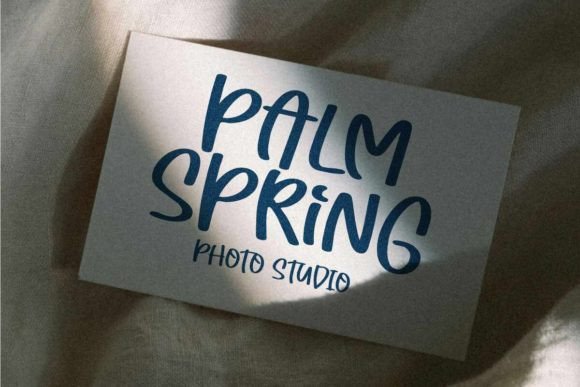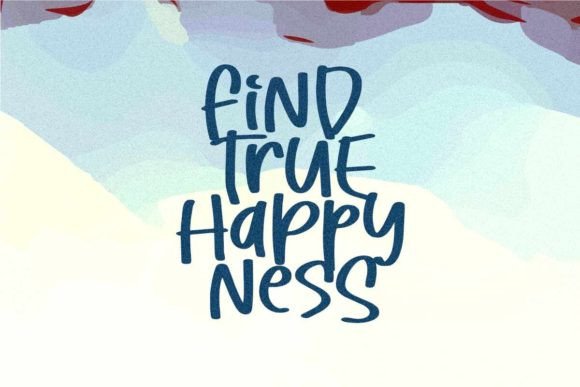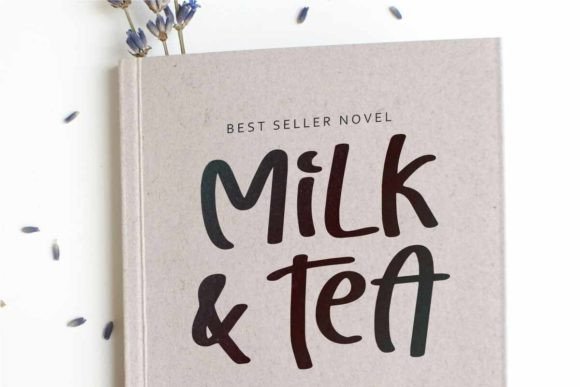
Introduction to Party at the Beach Font
As you sit at your desk, staring at a blank canvas, and the sun is shining brightly outside, you can’t help but feel the urge to create something that captures the essence of a carefree summer day. The sound of seagulls, the smell of saltwater, and the feeling of sand between your toes – it’s the perfect inspiration for your next creative project.
That’s where the Party at the Beach Font comes in – a high-quality design resource that’s sure to bring a smile to your face and a touch of sunshine to your designs. With its transparent background and playful characters, this font is a must-have for any designer looking to add a little extra joy to their creative projects.
Whether you’re planning a beach-themed event or just want to infuse your designs with a little bit of summer fun, the Party at the Beach Font is the perfect tool for the job. And the best part? It’s a free download, making it accessible to designers of all levels and styles.
Key Features of Party at the Beach Font
- High-quality design for creative projects, perfect for beach-themed invitations, posters, and other print materials.
- Transparent background, allowing for easy customization and versatility in design.
- Unique characteristics include playful, cursive script and bold, colorful lettering, making it perfect for adding a fun touch to any design.
- Ideal for use in graphic design, digital art, and other creative projects where a lively, beach-inspired font is needed.
Honest Review: Party at the Beach Font
I recently had the chance to play with the Party at the Beach Font, and I must say it’s a pretty cool design resource. The high quality of the font is immediately apparent, with crisp and clear letters that are perfect for a creative project.
One of the standout features of this font is its transparent background, which makes it easy to use in a variety of design scenarios. Whether you’re creating a beach-themed party invitation or a summer-inspired social media graphic, this font is sure to add some fun and flair to your design.
- High-quality, clear letters
- Transparent background for easy use
- Perfect for creative projects, especially those with a beach or summer theme
- ⚠️ Limited character set, may not be suitable for longer texts
- ⚠️ Not ideal for professional or formal designs, may come across as too playful
Overall, I’m impressed with the Party at the Beach Font. It’s a great design resource for creative projects, and its high quality and transparent background make it a pleasure to use. If you’re looking for a fun and playful font to add some personality to your designs, this one is definitely worth checking out.
Tips for Getting the Most Out of the Party at the Beach Font
To get the most out of the Party at the Beach Font, use it in conjunction with other fun and playful design elements, such as colorful graphics and bold textures. Experiment with different font sizes and colors to create a unique and eye-catching design.
The Party at the Beach Font is perfect for designing beach-themed party invitations, social media graphics, and other creative projects that require a fun and carefree vibe.